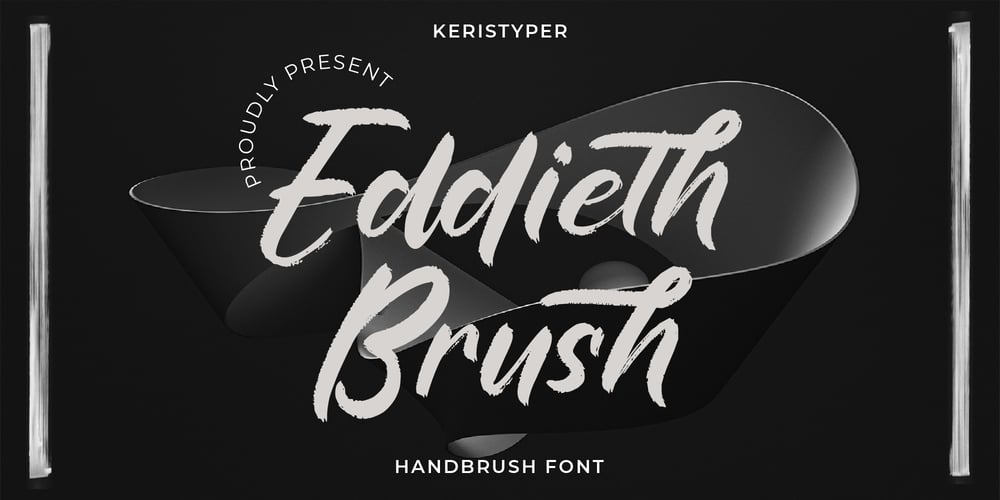
Eddieth Brush Font Family was designed by Tezar Tantular and published by Keristyper Studio. Eddieth Brush contains 1 styles and family package options. Eddieth Handbrush is a best-handwritten brush that is written casually and quickly. This font is good for logo design, Social media, Movie Titles, Books Titles, short text even long text letters, and good for your secondary text font with sans or serif.Featured: Standard Uppercase & Lowercase Numeral & Punctuation Multilingual : ä ö ü Ä Ö Ü ß ¿ ¡ Alternate & Ligature PUA encoded We recommend programs that support the OpenType feature and the Glyphs panel such as Adobe applications or Corel Draw. so you can use all the variations of the glyphs. Hope you enjoy our fonts!